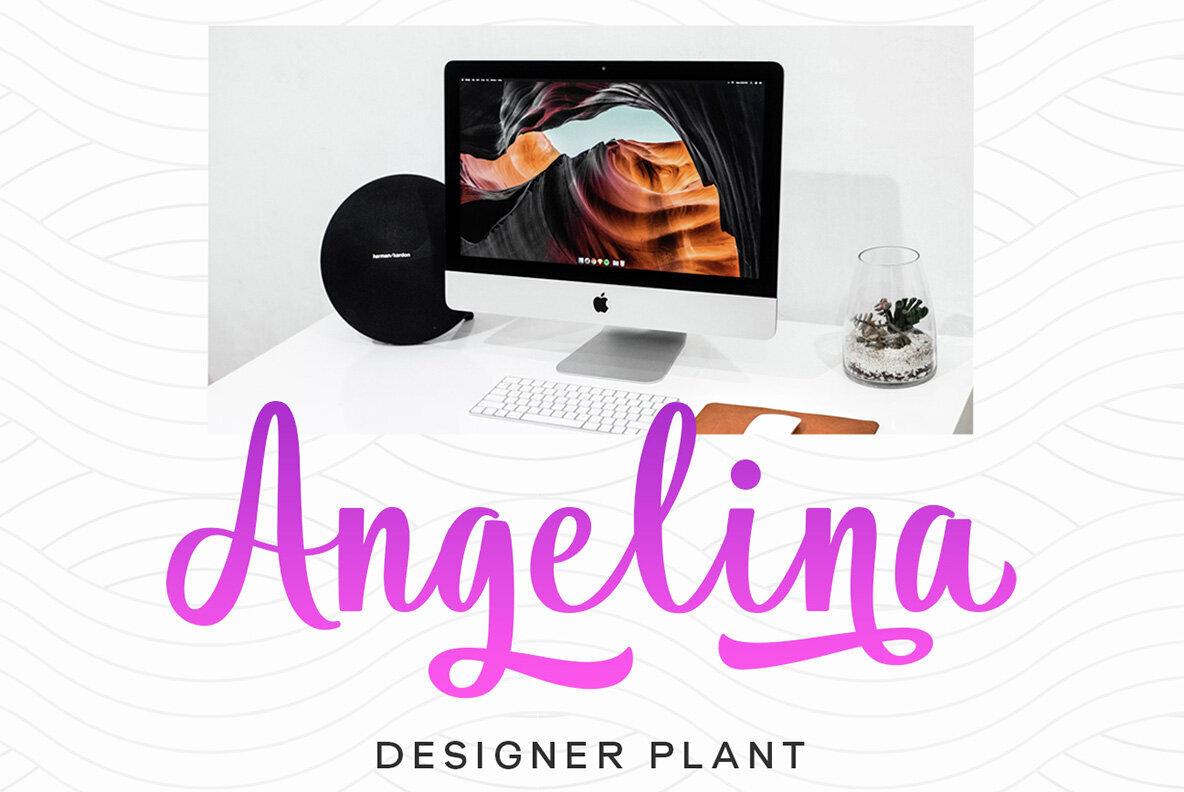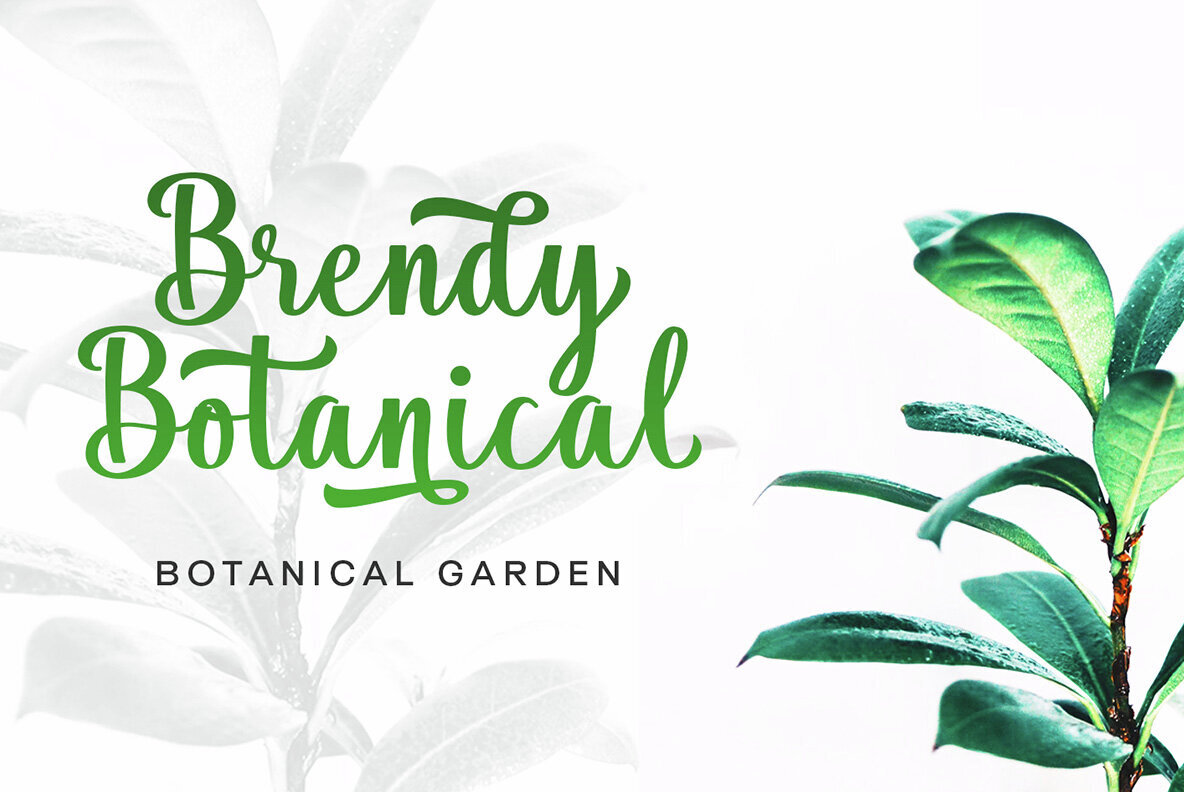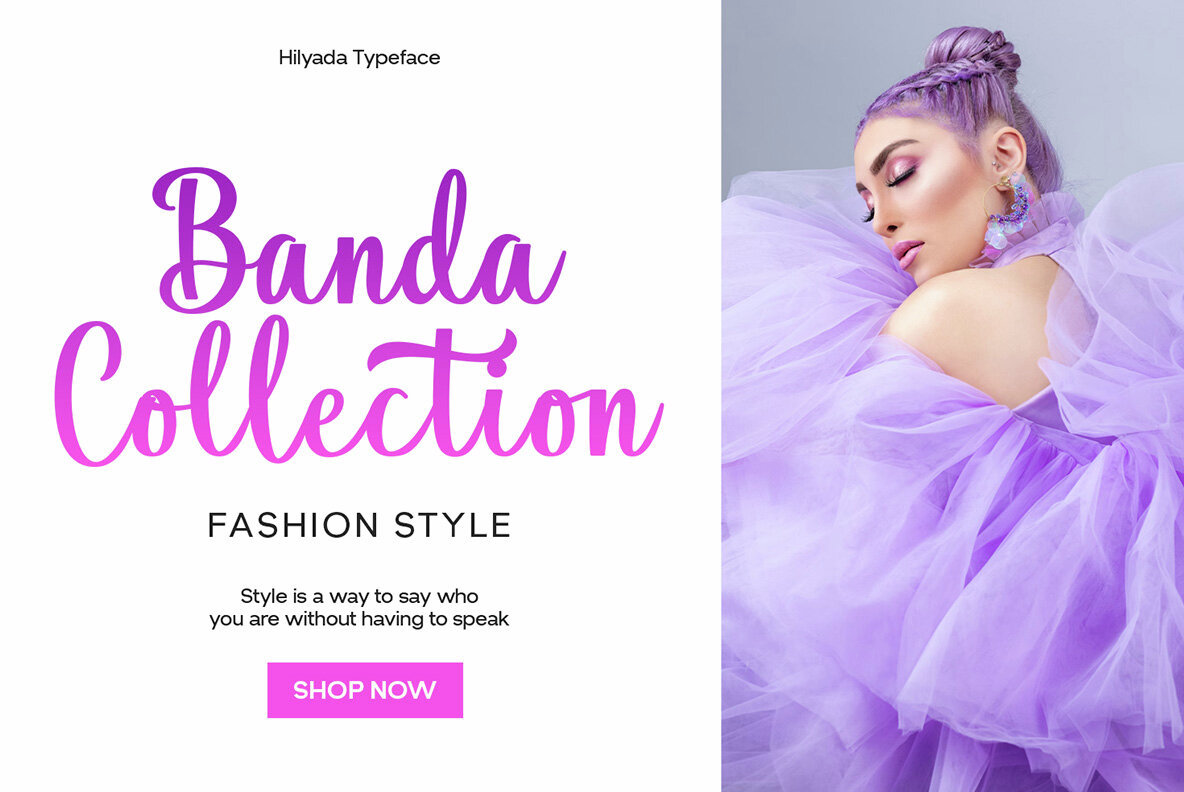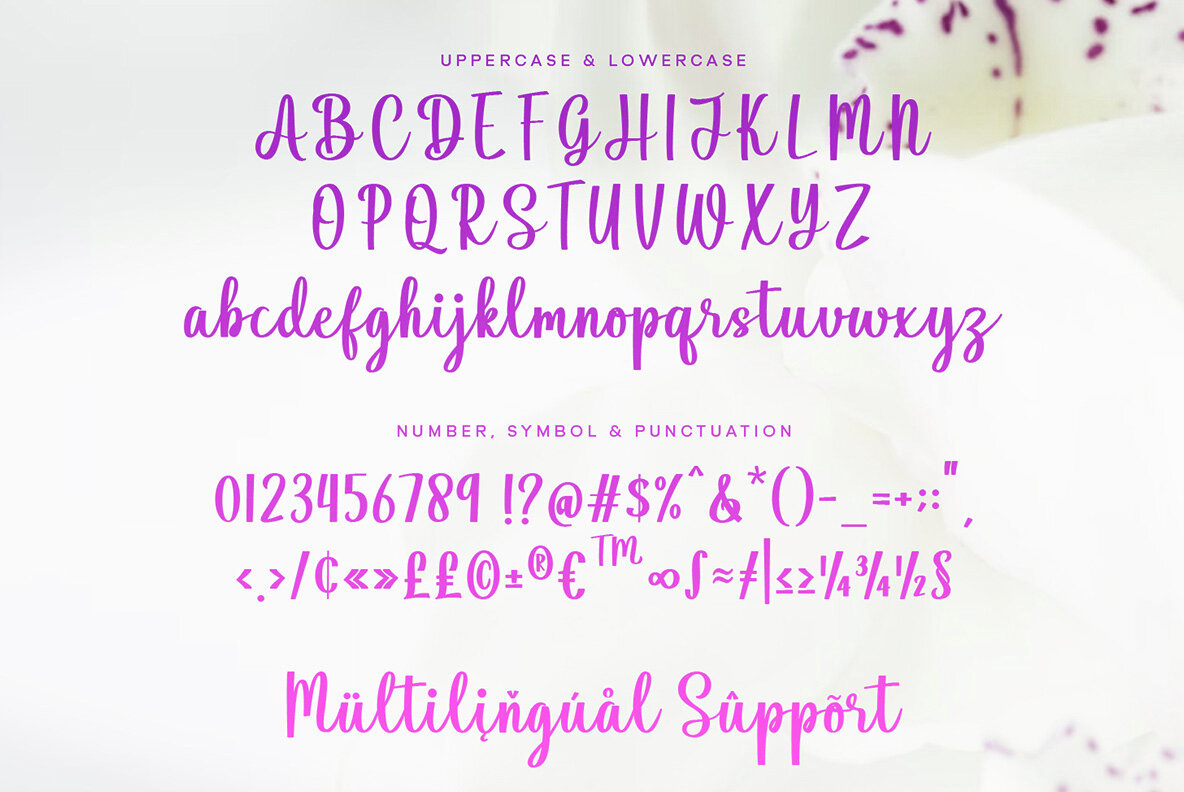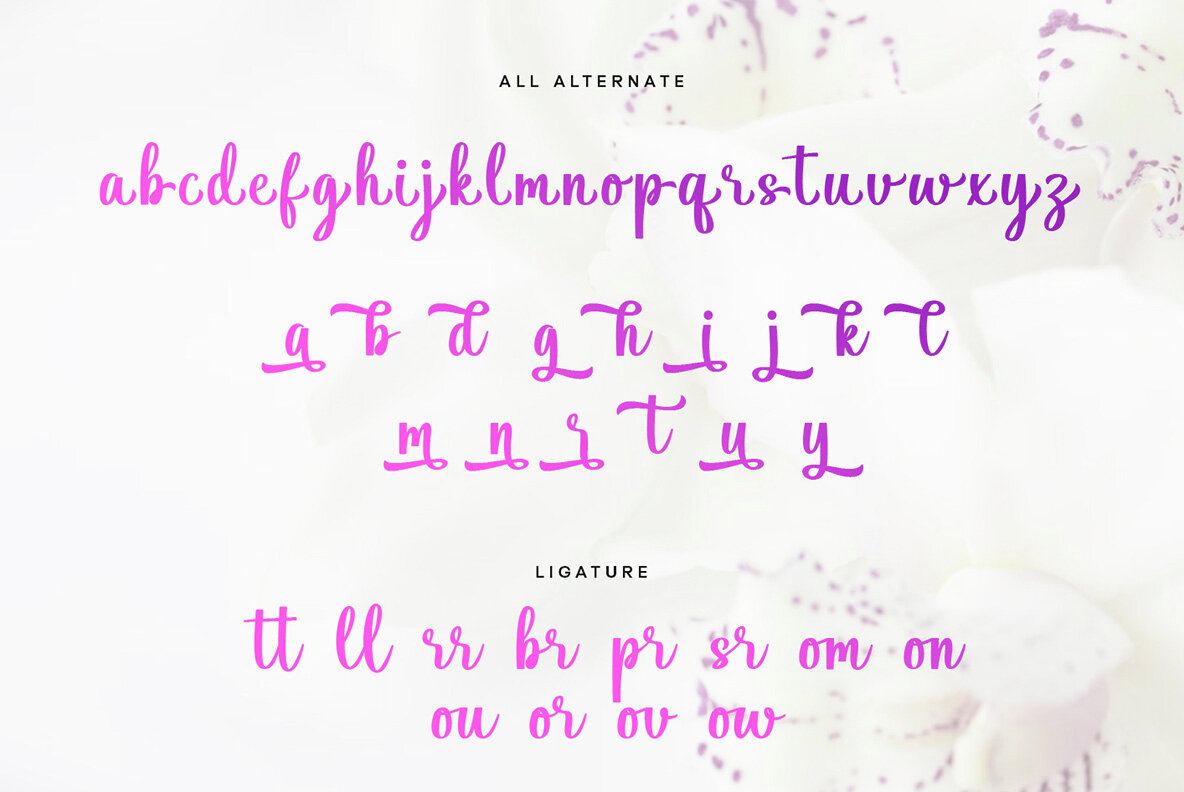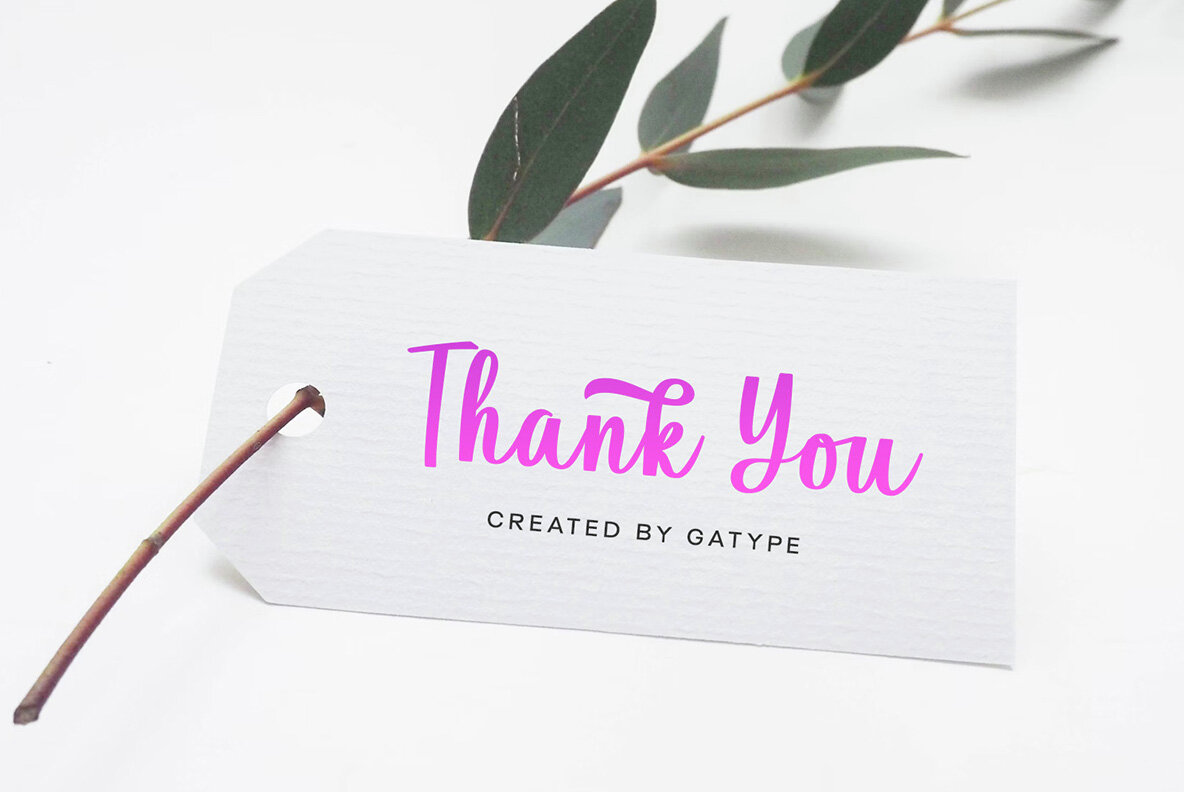
Hilyada Font
Hilyada
Hilyada is an elegant script font characterized by its smooth, handwritten style and flowing letterforms. This font evokes a feminine and romantic aura, making it perfect for creative projects like wedding invitations, branding, and posters. Its artistic design lends a classic and personal touch to any layout, enhancing the overall aesthetic with its unique charm.
The dynamic curving lines of Hilyada exude a luxurious warmth, adding an enchanting impression to the text. This font beautifully blends grace and elegance, making it ideal for designers looking to infuse their work with a sense of sophistication and artistry. Whether used for personal or professional projects, Hilyada’s distinctive style offers an inviting and memorable visual appeal.